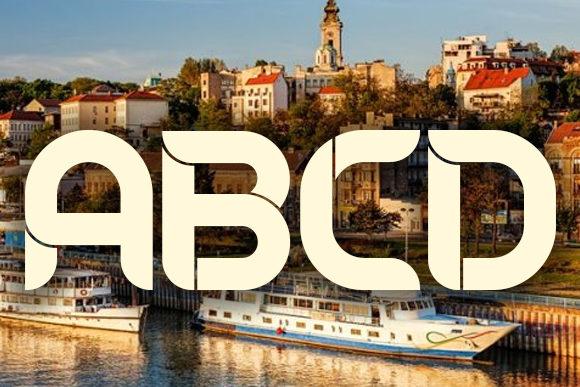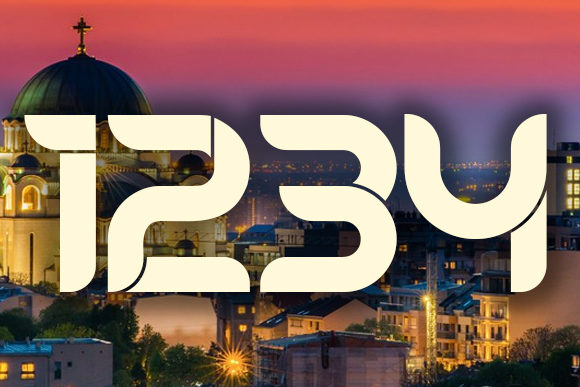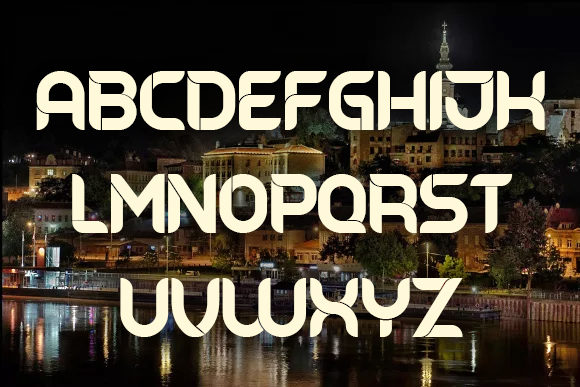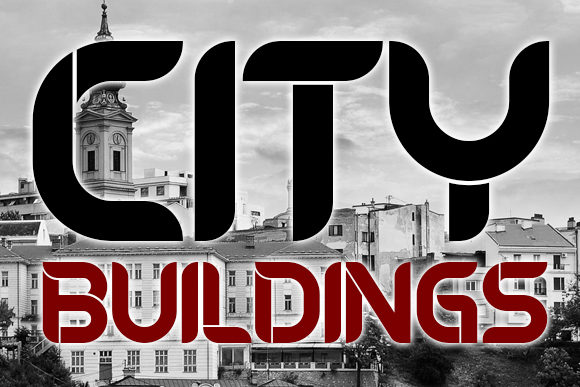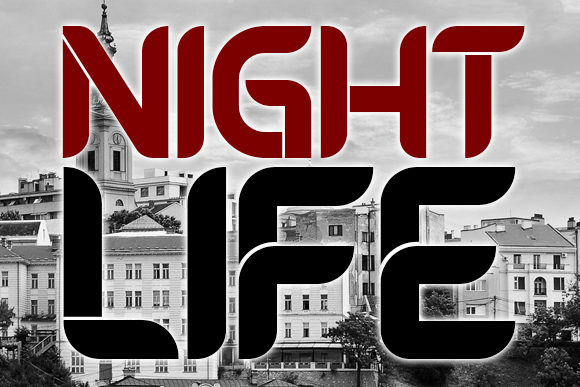
The Perfect Blend of Bold and Elegant: Unveiling the Belgrado Font
Have you ever been inspired by a single font while working on a design project, only to find yourself lost in the possibilities it presents? That’s exactly what happened to many designers when they stumbled upon the Belgrado Font. Its unique blend of bold elements and elegant charm makes it the perfect addition to any project.
The Belgrado Font is a display font designed to make a statement. Its bold lines and curves add a touch of sophistication to any text, making it ideal for headings, titles, and other prominent design elements. Whether you’re working on a branding project, creating a website, or designing a print material, the Belgrado Font is a valuable asset for designers looking to add a unique touch to their work.
With its timeless feel and versatility, the Belgrado Font is sure to become a favorite among designers and artists alike. Its ability to elevate any design project makes it a must-have in any designer’s toolkit.
Belgrado Font Key Features
- Font Family: Belgrado is a sans-serif typeface designed for digital use, with a wide range of weights and styles.
- Size: The font family includes weights ranging from Thin (100) to Extra Bold (800), with corresponding font sizes.
- Unique Characteristics: Belgrado features a geometric sans-serif design with a focus on legibility, making it suitable for body text and digital interfaces.
Belgrado Font Review
As a designer, I was excited to dive into the Belgrado font and see what it had to offer. Overall, I’d say it’s a solid choice for any project that needs a touch of elegance and sophistication.
- ✨ Elegant and refined aesthetic: Belgrado’s sleek lines and subtle curves make it perfect for high-end branding, luxury products, or any project that needs a touch of sophistication.
- ✨ Great for long text: Despite its elegant look, Belgrado is surprisingly legible even at smaller font sizes, making it ideal for lengthy texts, articles, or even novels.
- ✨ Versatile: Belgrado works well in both digital and print formats, giving you the flexibility to use it across various platforms and mediums.
- ⚠️ Limited font weight options: While Belgrado has a few font weights to choose from, I’d have liked to see more options to provide greater flexibility in terms of design and layout.
- ⚠️ Limited language support: If you need to work with languages that require more complex scripts or character sets, Belgrado might not be the best choice.
While Belgrado has its limitations, I believe it’s a great addition to any designer’s toolkit. Its elegant aesthetic and versatility make it perfect for a wide range of projects, from branding and packaging to digital design and publishing. With a bit more attention to font weight options and language support, Belgrado could be a true standout in the world of fonts.
Tips for Getting the Most Out of the Belgrado Font
Use the Belgrado Font to add a touch of elegance and sophistication to your designs.
Pair the Belgrado Font with other elegant fonts to create a unique and stylish look.
Experiment with different font sizes and colors to create visual interest and emphasis.
Use the Belgrado Font for:
Business cards and brochures